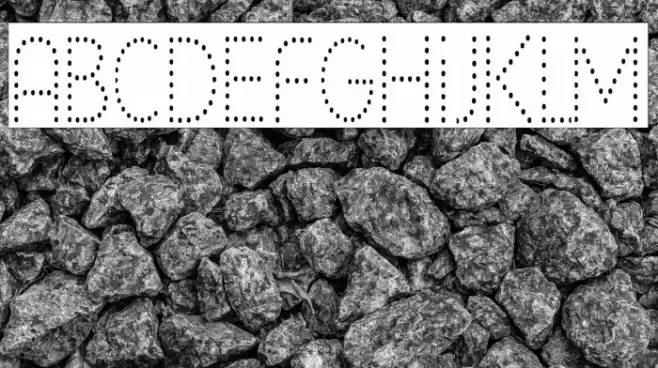
bisturi night club Font
bisturi night club Description
This font features a unique dotted design, where each character is formed by a series of evenly spaced dots. The style is reminiscent of marquee lights or retro signage, giving it a playful and eye-catching appearance. The uppercase and lowercase letters maintain a consistent pattern, ensuring readability while adding a decorative flair. Numbers and special characters follow the same dotted motif, making the font versatile for various uses. The overall aesthetic is both modern and nostalgic, suitable for projects that require a bold and distinctive look.
A dotted, marquee-style font with a playful and retro appearance from Uncategorized fonts.
- Proposed Projects: Ideal for nightclub posters, event invitations, retro-themed designs, and branding that requires a standout visual element.